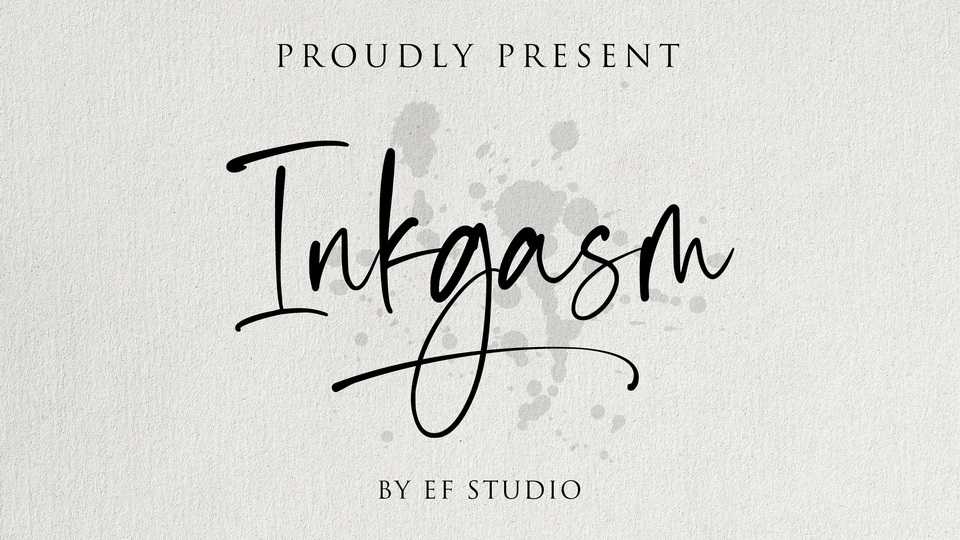
Download Inkgasm font, a casual and stylish script typeface with a natural signature look. Inkgasm is suitable for various project, like branding, invitation, merchandise, website, advertisement, magazine, and more.
Designer: Ef Studio